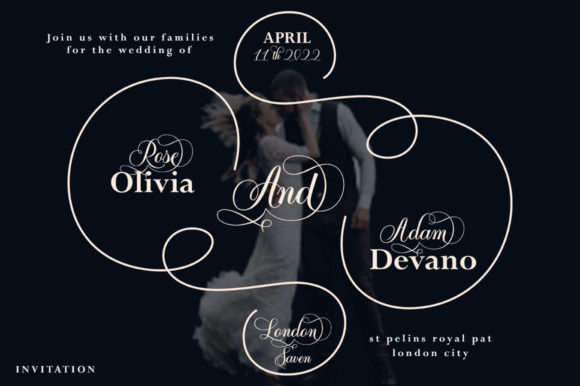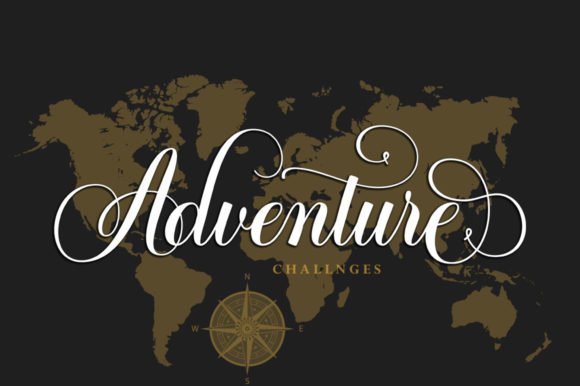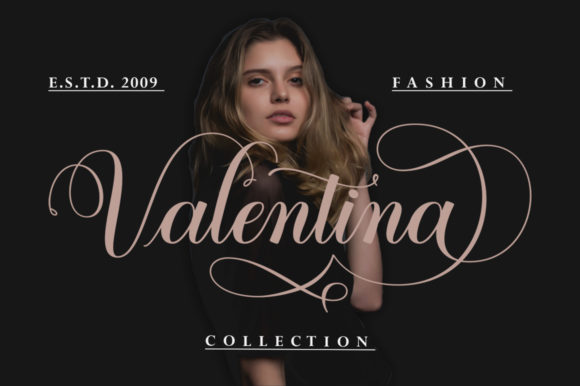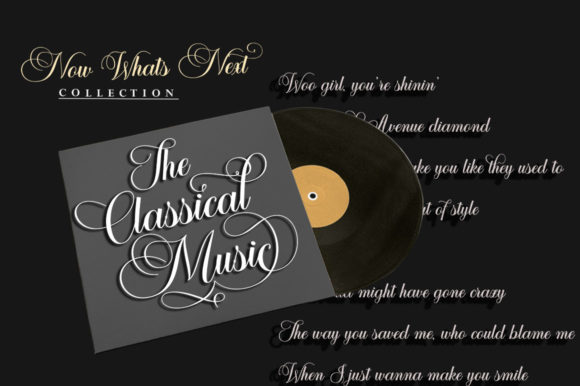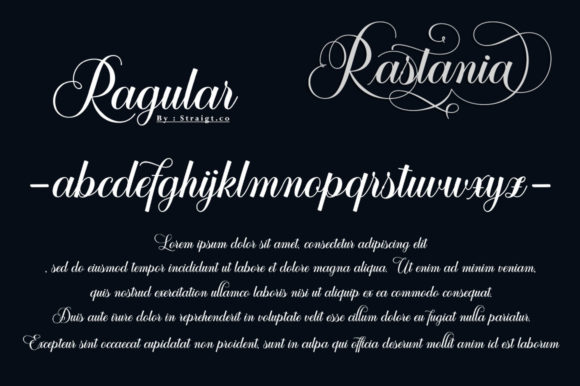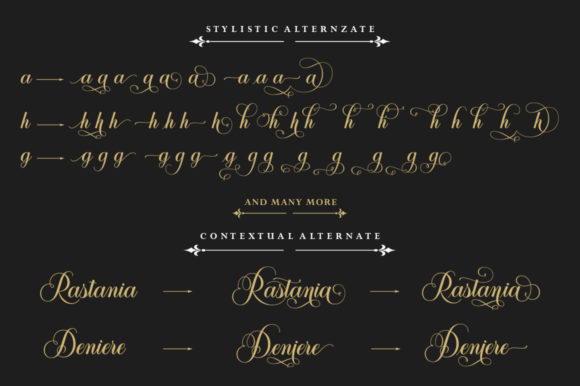
Introduction to Rastania Script Font Font
Fonts play a crucial role in design, and the Rastania Script Font font is a typeface that brings both character and versatility to any project. Whether you’re working on a branding project, a website, or a print design, the Rastania Script Font font offers a unique style that can elevate your work.
| 📌 Font Name | Rastania Script Font |
| 👤 Author | STRAIGHT.CO |
Rastania Script is a dazzling script font.
This font is neatly crafted and highly detailed Rastania Script is PUA encoded which means you can access all glyphs and swashes with ease.
Key Features of Rastania Script Font Font
Why Choose Rastania Script Font Font?
The Rastania Script Font font is more than just a typeface – it’s a design tool that helps you communicate your message with style and clarity. Its unique character set and versatile design make it suitable for a wide range of applications, from elegant invitations to bold headlines.
With its carefully crafted letterforms and balanced proportions, the Rastania Script Font font ensures readability and visual appeal across all mediums.
What makes Rastania Script Font font special?
The Rastania Script Font font stands out with its unique design, exceptional readability, and versatility across various design applications.